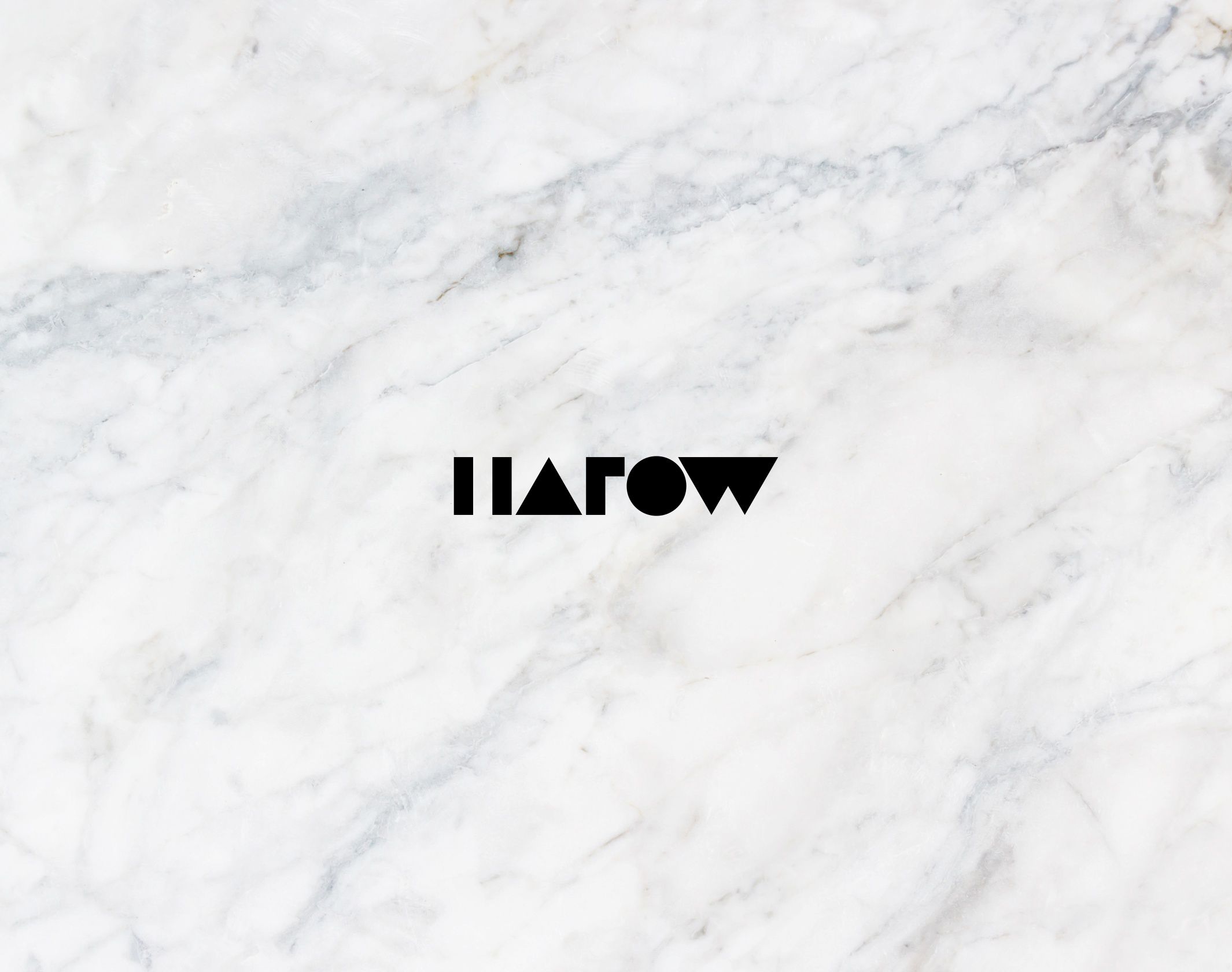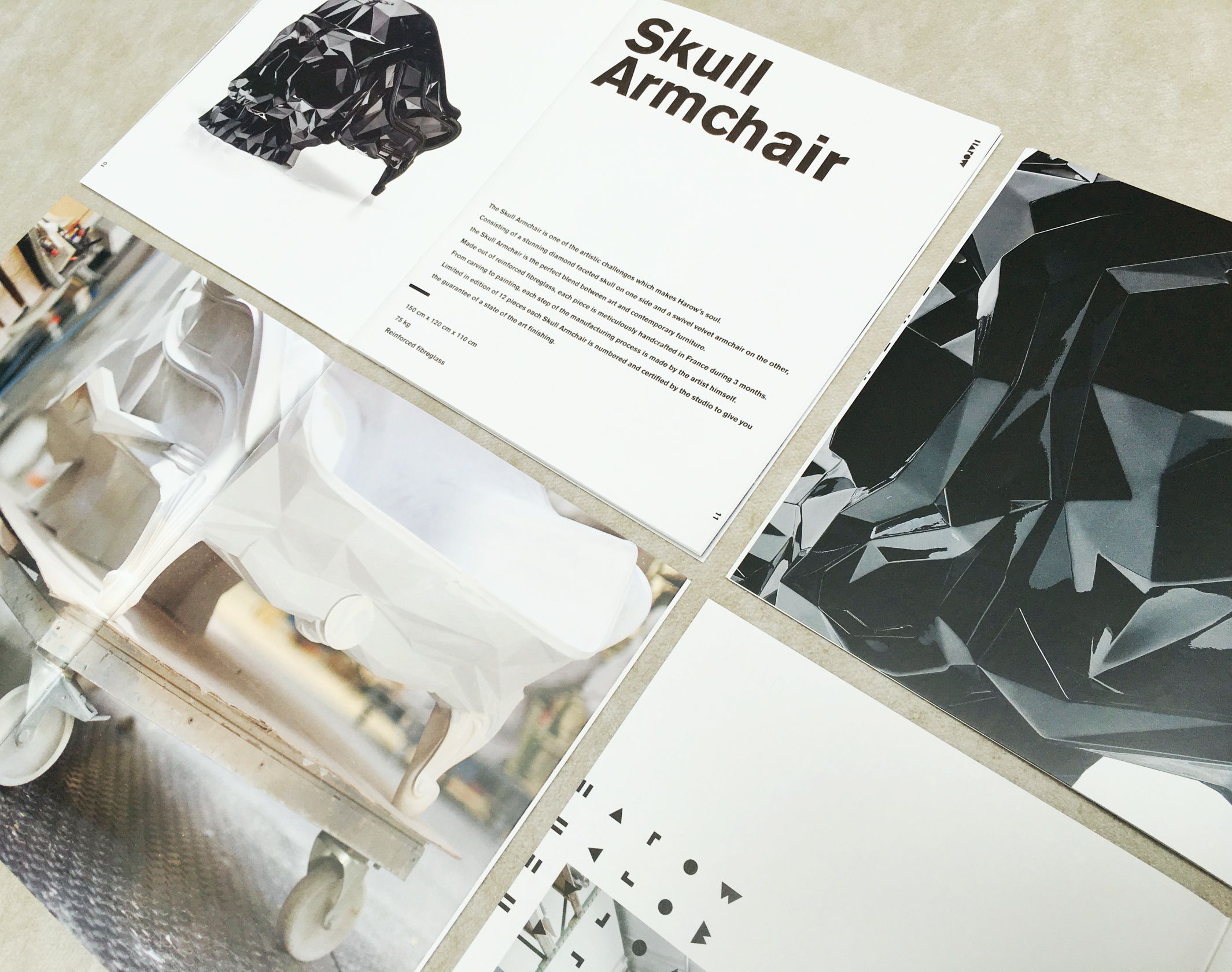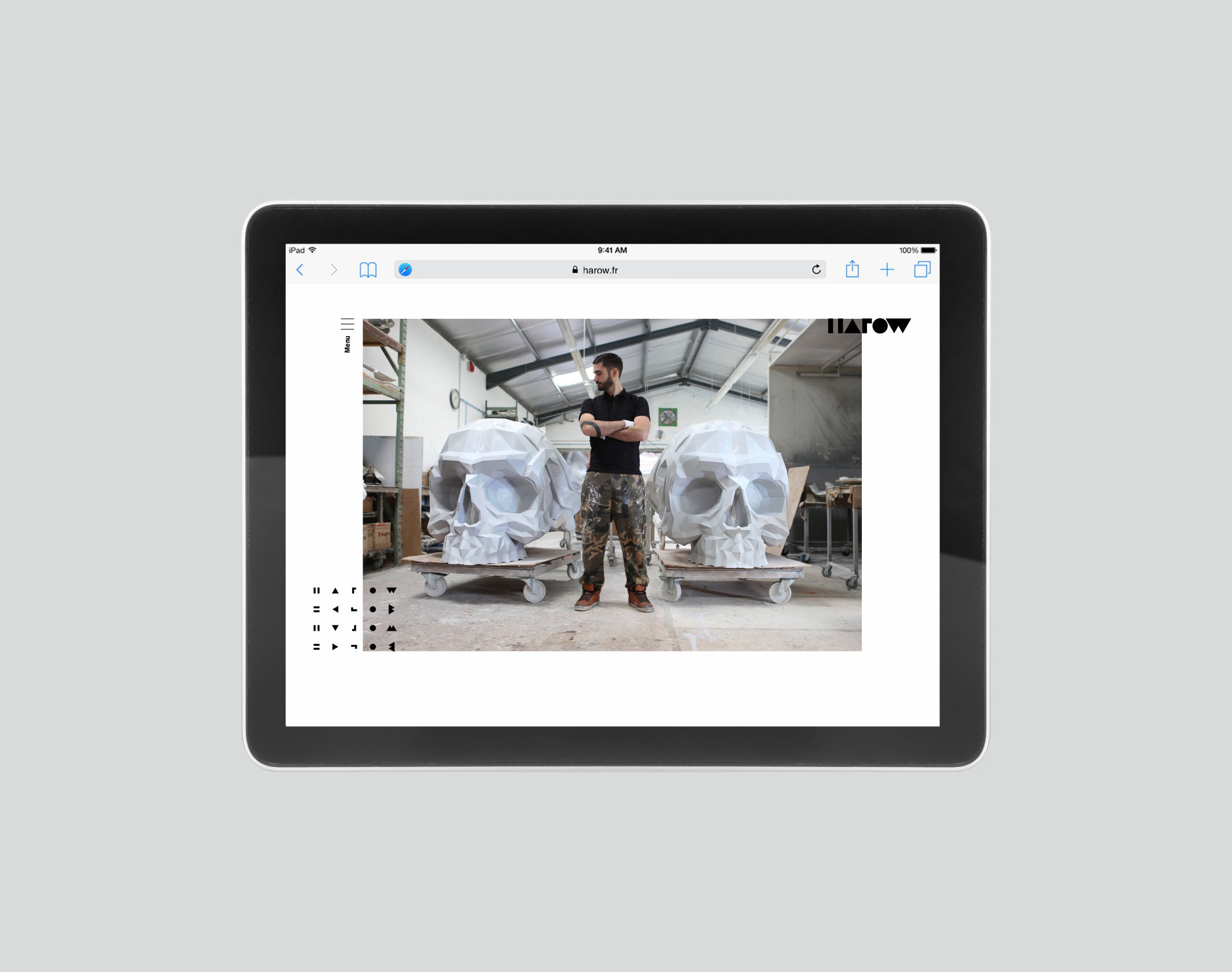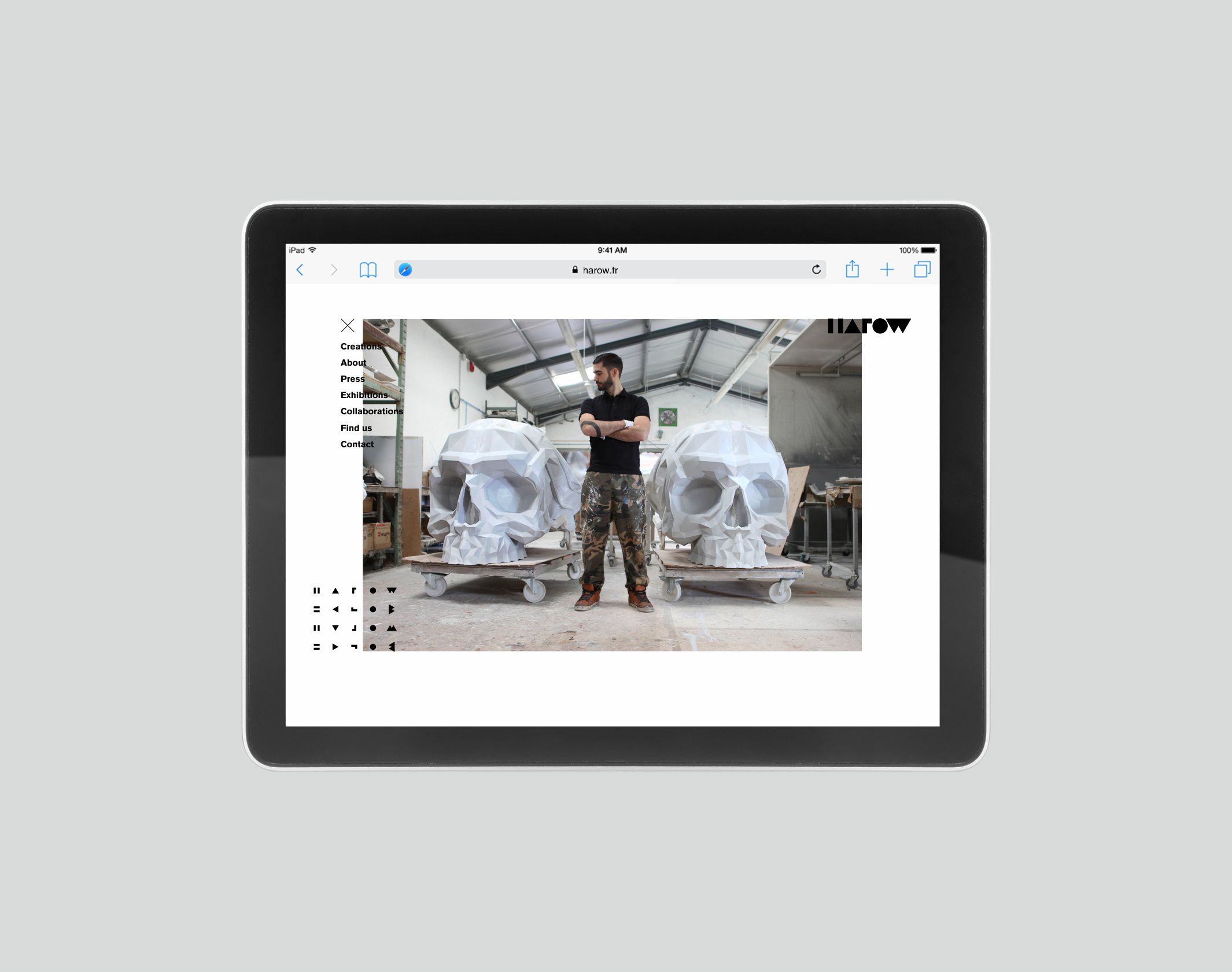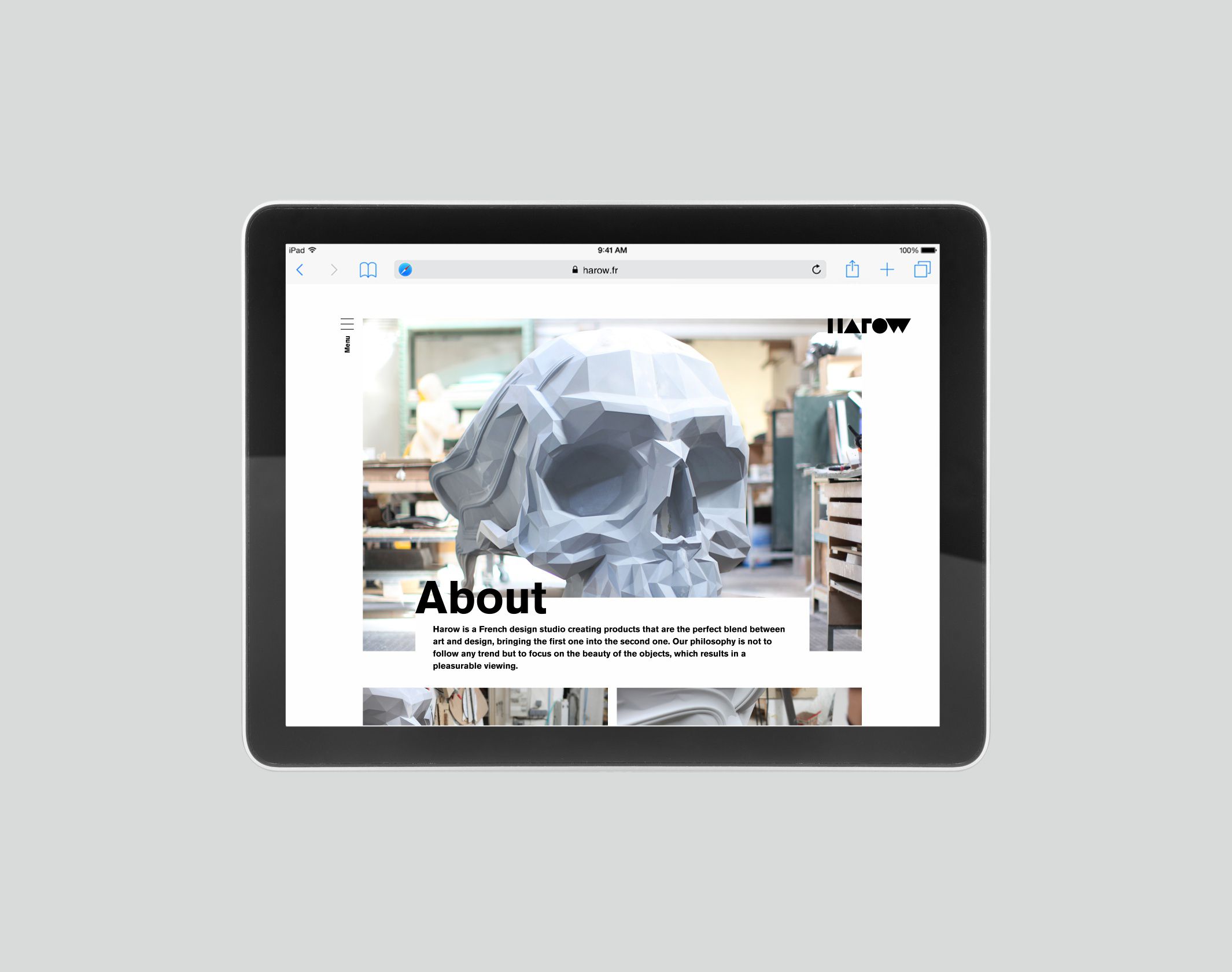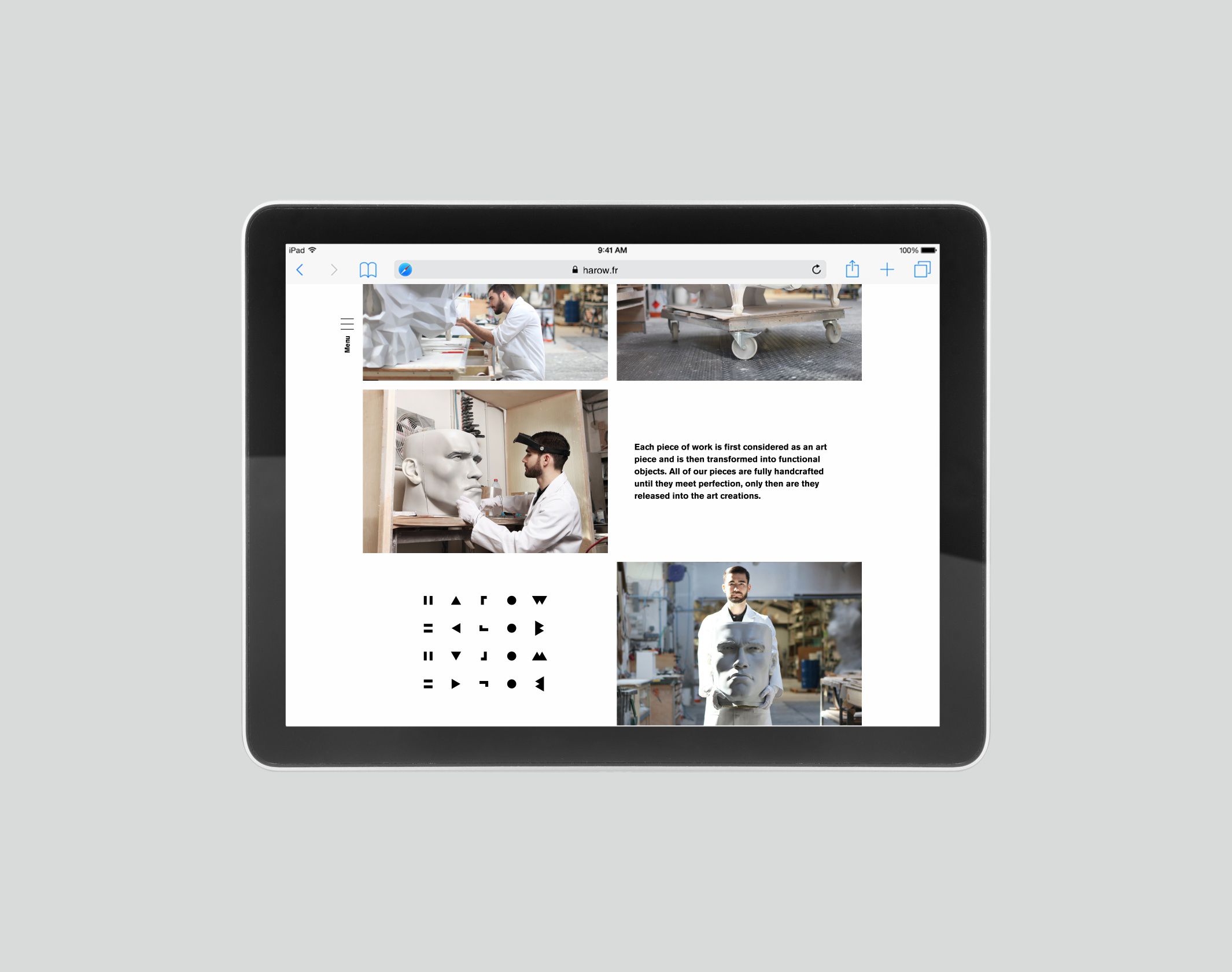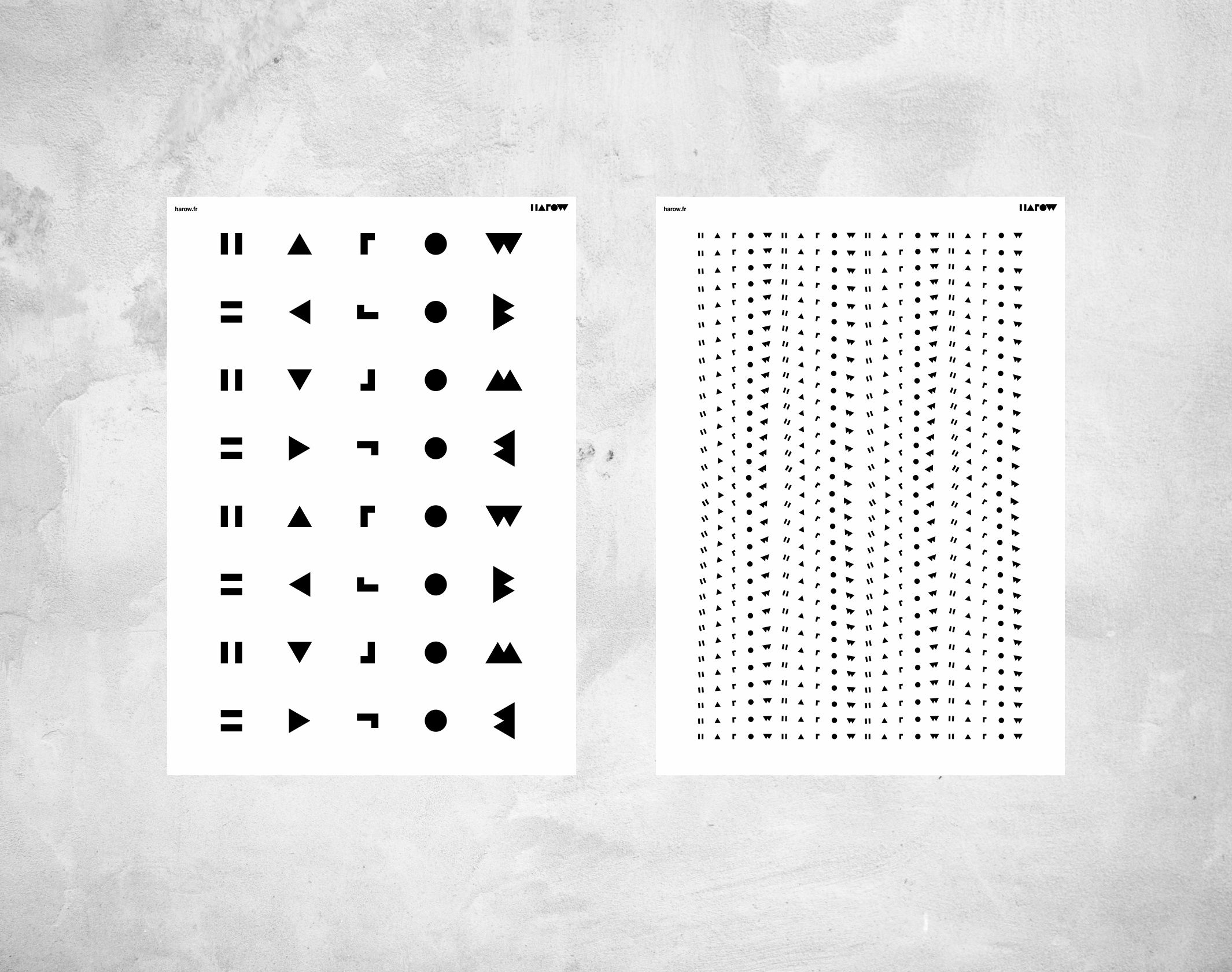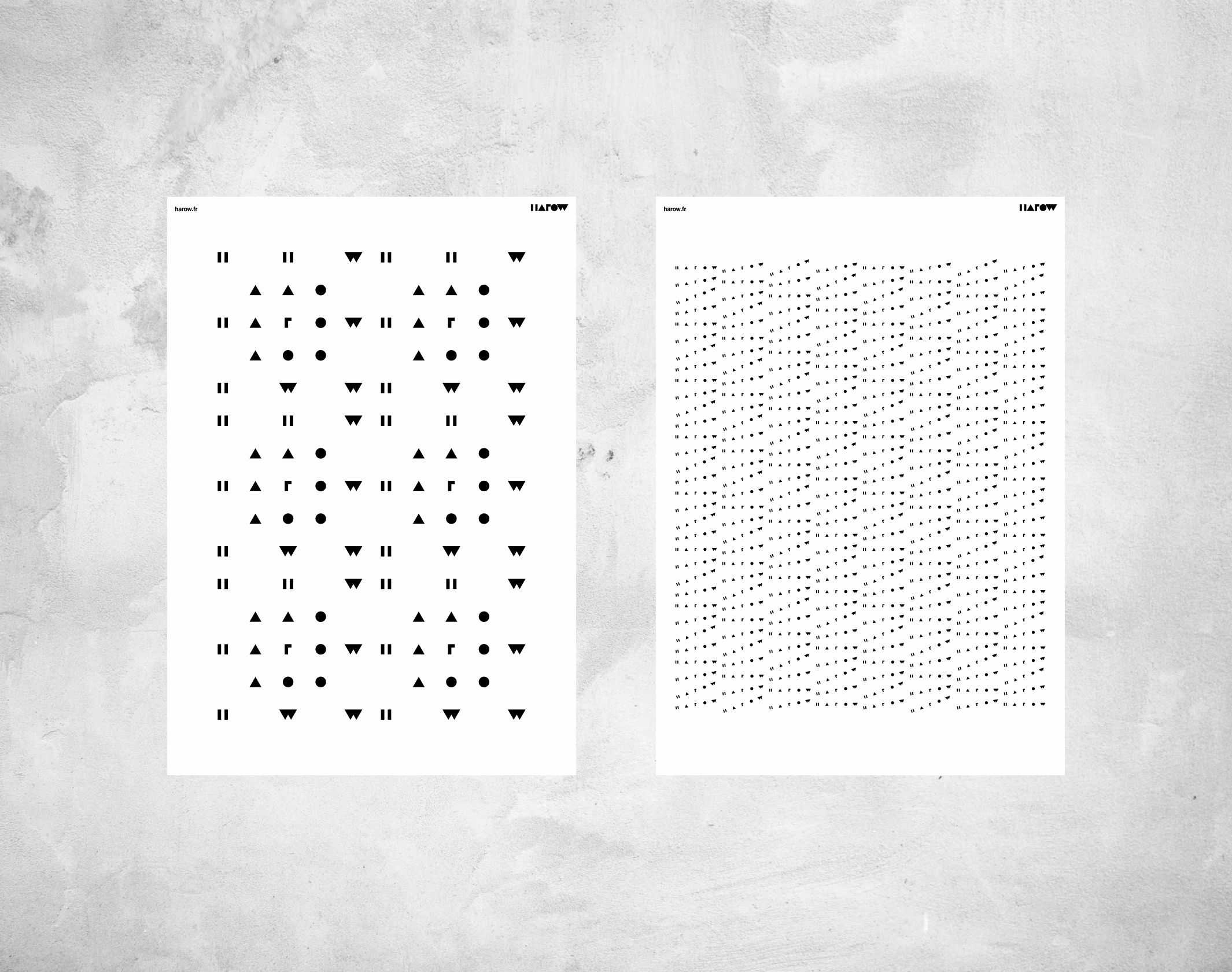
Harow
The artistic furniture line by designer Harold Sangouard
Harow is a french design studio lead by Harold Sangouard, where he creates products that are the perfect blend between art and design, bringing the first one into the second one in his limited editions of contemporary furniture. the studio’s philosophy doesn’t follow any trend but instead focuses on the beauty of the objects, that result in a pleasurable viewing. for this occasion, Harow is giving us a behind the scenes look into the different stages of the process of creating his unique pieces, that start as a piece of art and are then transformed into functional objects.
Hence we asked ourselves the following questions: how to give such a strong artistic furniture creator a great and relevant visual identity, without being too commercial? Is it possible to respect its free spirit in a branding work? The goal of the brand design work is not to create the whole spirit of the brand with a logo, but to provide a minimalist signature identity and a strong sign made to highlight the personality and the creative vision around a visual guideline. We designed a monolithic, stable, rigorous and timeless graphic identity and visual system, which has been unveiled in Monte Carlo in April 2016.